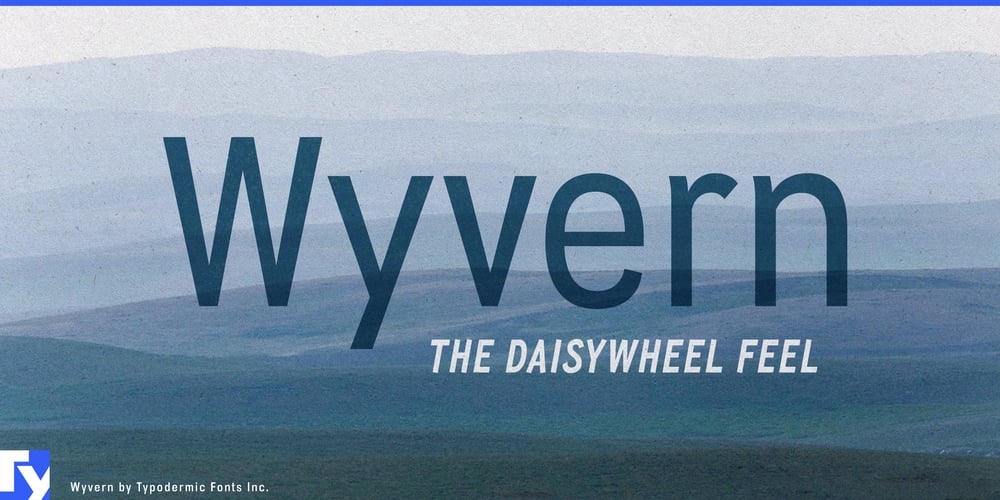
Wyvern Font Family was designed by Ray Larabie and published by Typodermic. Wyvern contains 17 styles and family package options. Unleash the power of Wyvern—a sans-serif typeface that doesn’t just communicate, it commands. Born from the legacy of vintage typewriters and daisy wheel printers, Wyvern soars above the competition with a perfect blend of nostalgia and cutting-edge design.Wyvern’s high x-height and short descenders aren’t just design choices; they’re a declaration of clarity and efficiency. Each character stands tall and proud, ensuring maximum readability whether it’s gracing the header of a corporate report or blazing across a billboard. The clean edges and open counters give Wyvern a vibrant presence that refuses to be ignored, making it the perfect choice for brands that dare to stand out. But Wyvern’s true strength lies in its versatility. With seven weights and their italic counterparts, this typeface family offers a range of voices from a whisper to a roar. The italics, with their angled stems and altered widths, bring a dynamic energy to the page without resorting to cursive frills. It’s the typographic equivalent of a power suit—professional, but with an edge that says you’re not afraid to innovate.Wyvern speaks the language of business fluently, but it’s equally at home in the world of high fashion or cutting-edge technology. Its ability to convey professionalism without sacrificing personality makes it the go-to choice for brands that want to be taken seriously while still pushing boundaries. This typographic chameleon adapts effortlessly across most Latin-based European writing systems. From the boardrooms of London to the start-up hubs of Berlin, from the fashion houses of Milan to the tech incubators of Stockholm, Wyvern articulates your message with unwavering precision. It’s as comfortable crafting legal documents in Polish as it is designing sleek user interfaces in Dutch.Why settle for typography that whispers when you can have Wyvern—a typeface that roars? Let Wyvern be the voice of your boldest ideas, the face of your bravest campaigns. In a world where first impressions are everything, Wyvern ensures you’ll never go unnoticed.